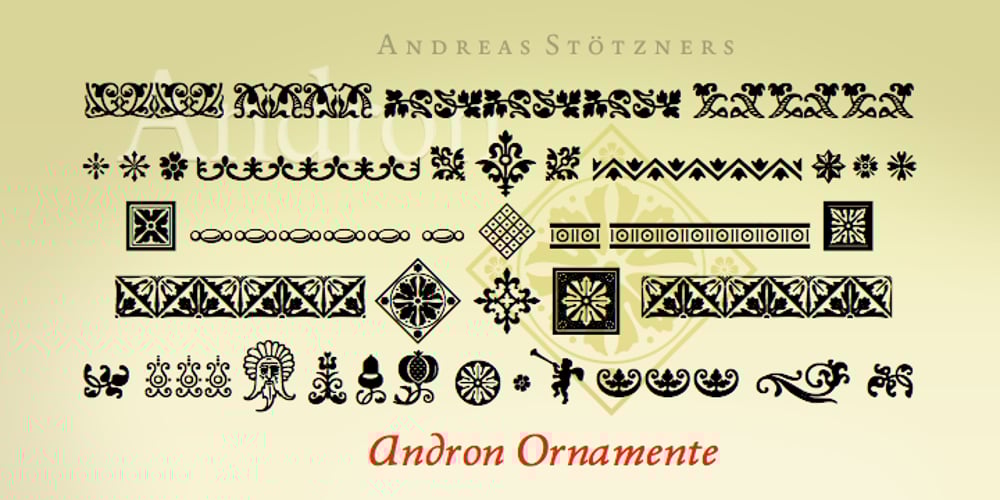
Andron Ornamente Font Family was designed by Andreas Stötzner and published by SIAS. Andron Ornamente contains 1 styles and family package options. Andron Ornamente contains a set of about 48 fancy classical typographic ornaments. You can embellish pages, headings, memos, invitations or title settings … you can compose lines and borders and even rich graphical textures. The Andron ornaments perfectly match the timeless classical mood of all Andron typeface fonts. (Note that the glyphs contained in this font are identical to those ornament glyphs in the Italic and Scriptive fonts of the Andron 2 series as well as the Scriptive font of the Andron 1 Latin family.) For the ease of use the glyphs of the Andron Ornamente font are double-coded and also mapped to the keyboard-friendly a–z and A–Z positions. If you like fine ornaments you should also have a look at Arthur Ornaments, Behrens Ornaments and Leipziger Ornamente.